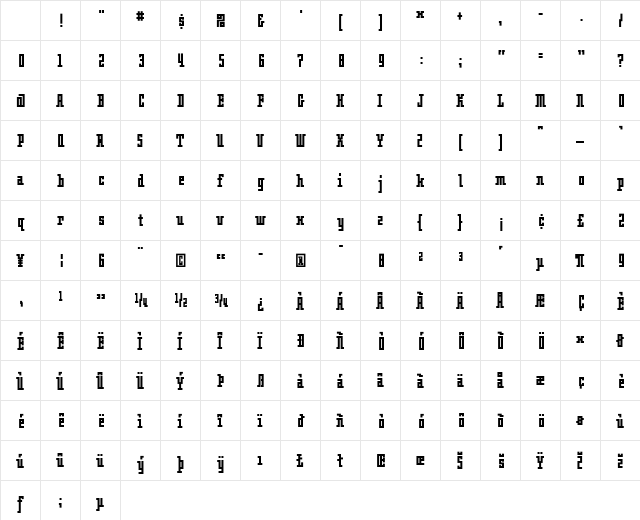
Complete Oblong Bold glyph index. Displaying only characters natively supported by Oblong Bold font.
Oblong is a composed and adaptable typeface that performs quietly and consistently across a wide range of design contexts. Its bold stroke weight gives it real presence on the page.